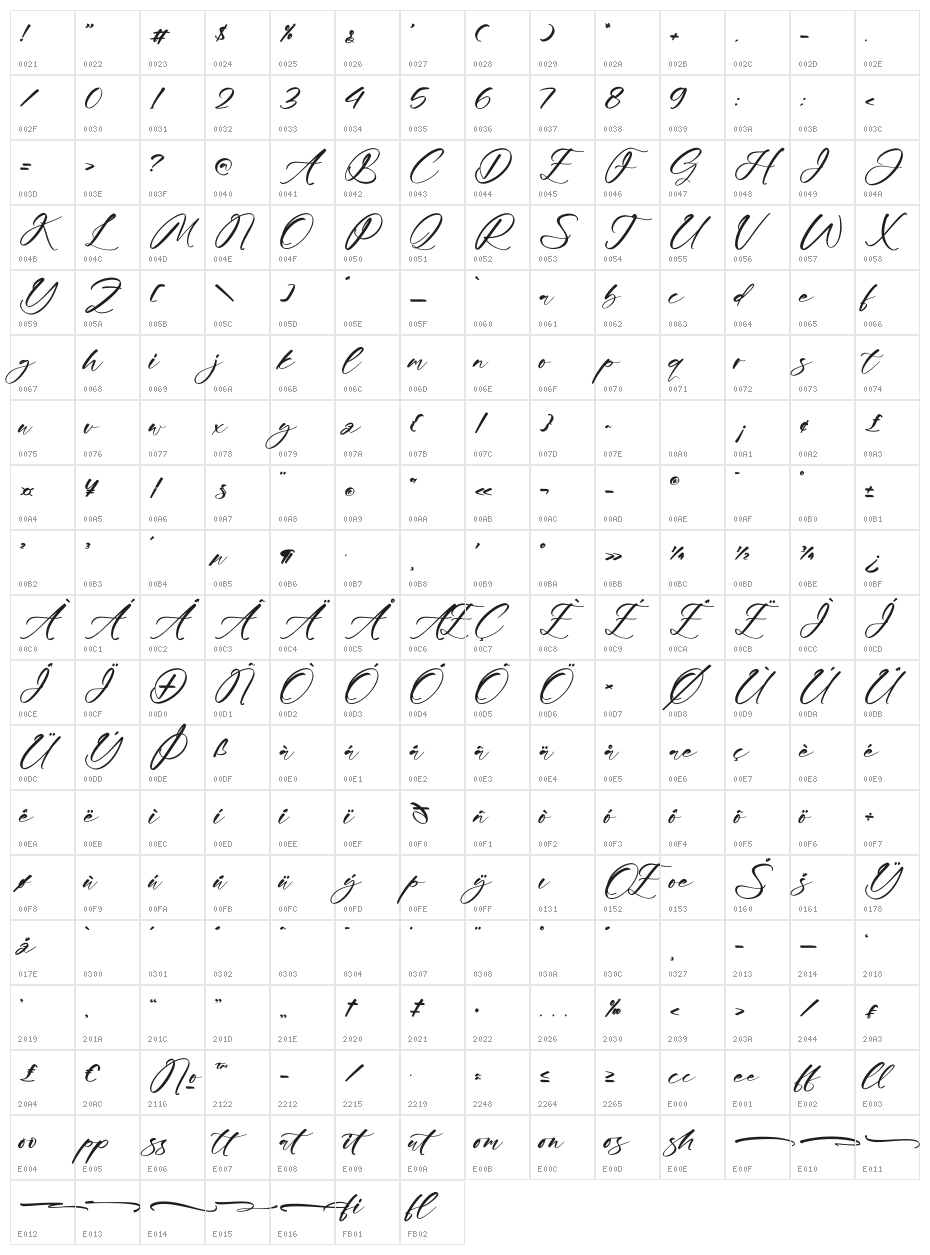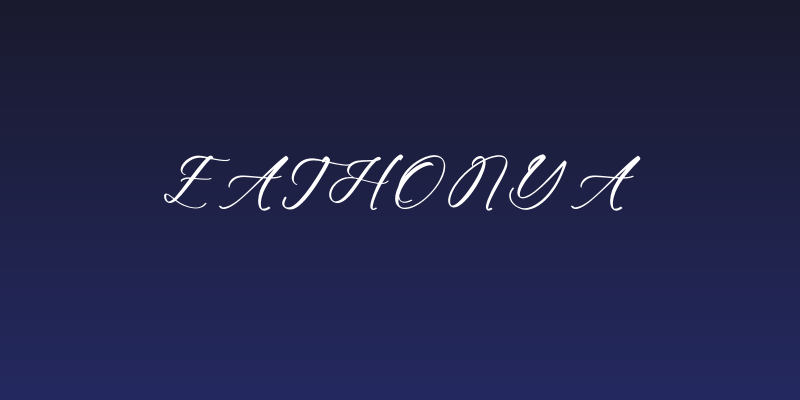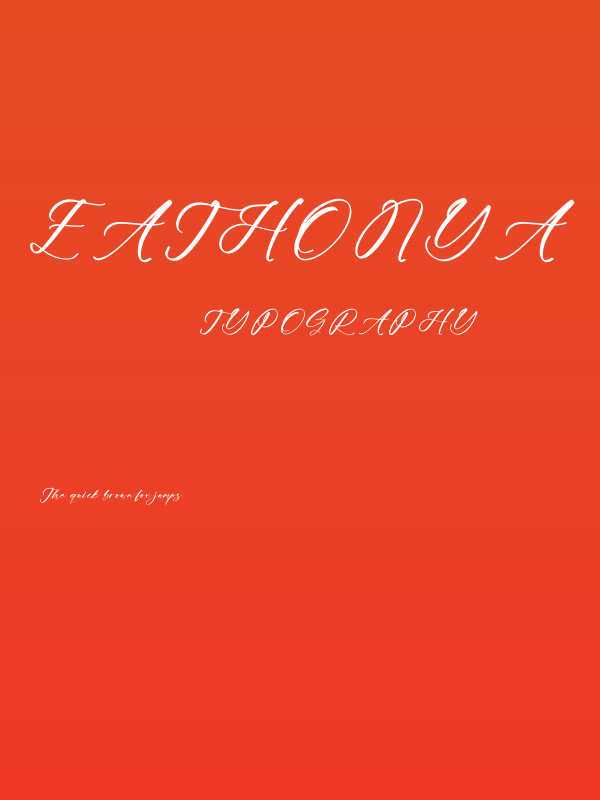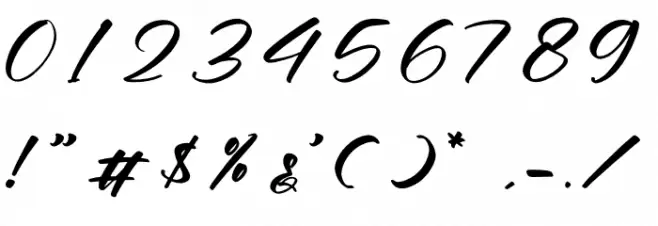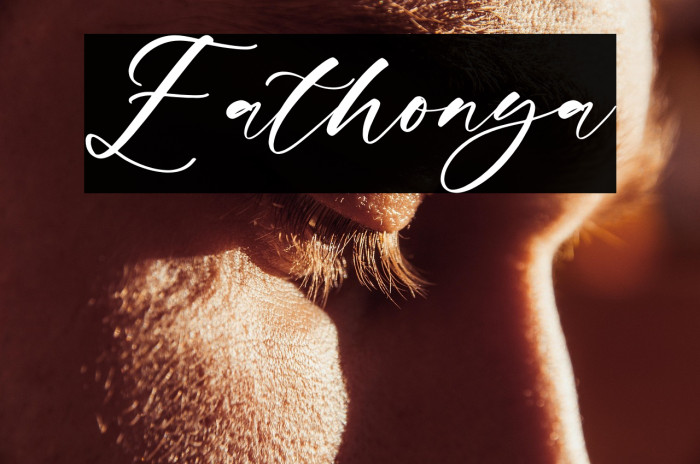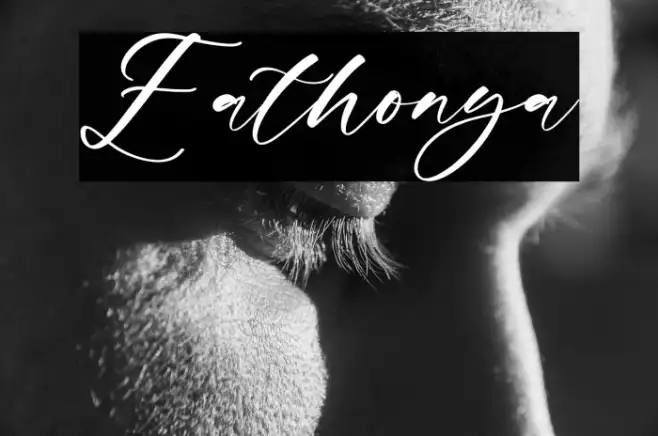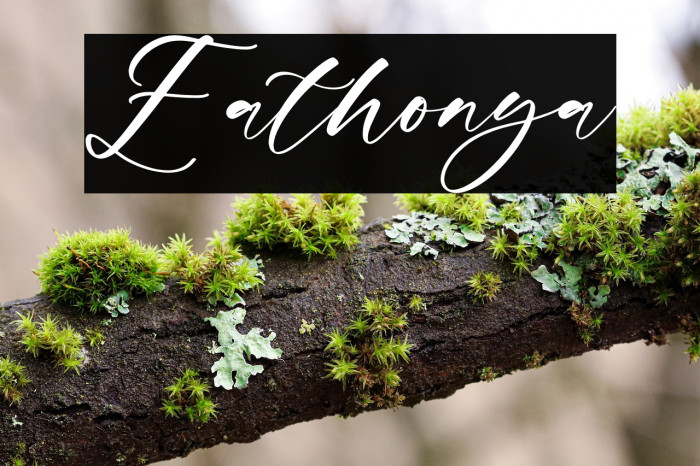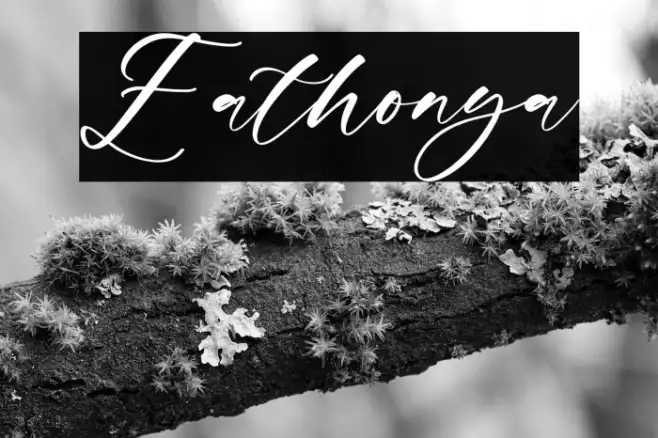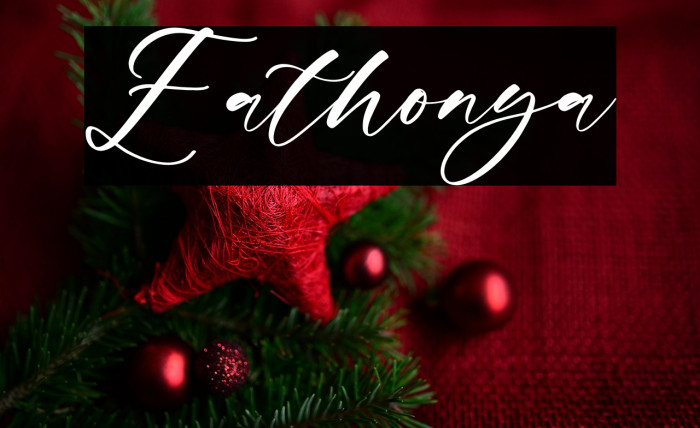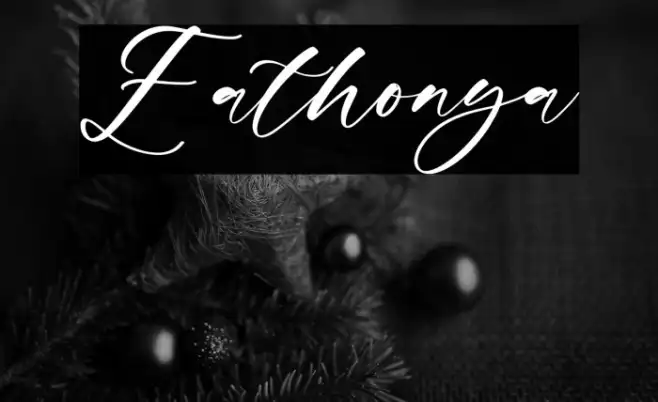
Eathonya Font
A flowing, elegant script font with a handwritten appearance, featuring smooth curves and varying stroke widths.
| Proposed Projects | Wedding invitations, greeting cards, elegant branding. |